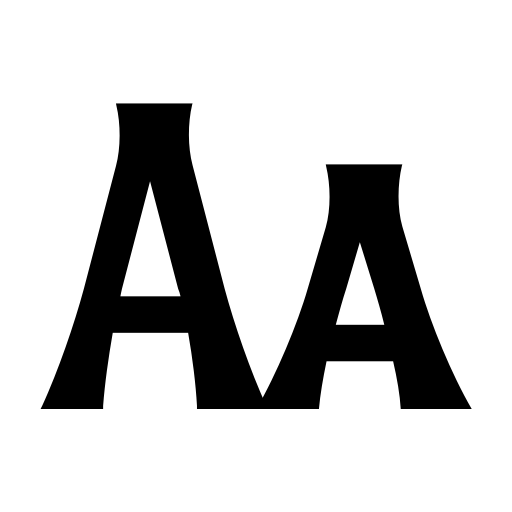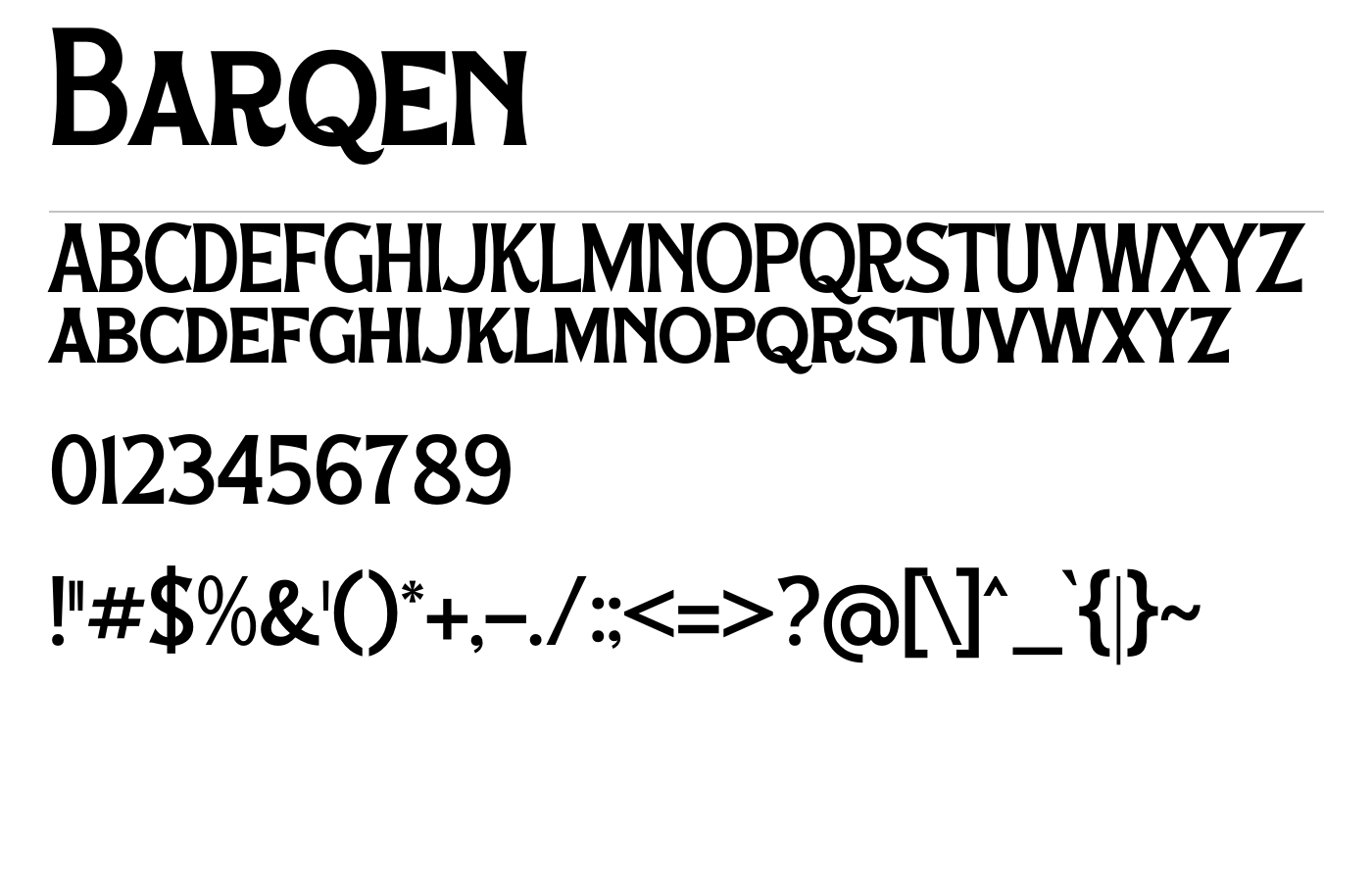
Barqen is a bold serif font with strong, slightly condensed letterforms that balance sharp angles with subtle curves, giving it a distinctive vintage yet modern flair. Its high contrast between thick and thin strokes and unique character details, such as the curved tail on the Q and stylized ampersand, make it perfect for headlines, logos, and branding that seek a bold, elegant, and memorable look. This font works well in fashion, editorial, and creative packaging contexts where a striking, confident personality is desired.
Barqen Font
About Barqen Font